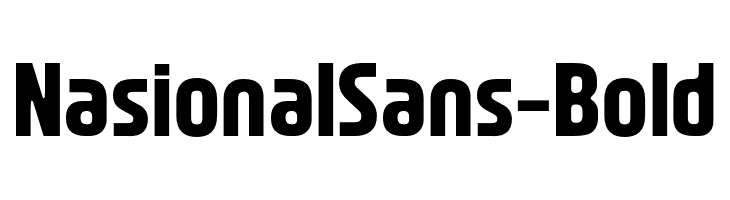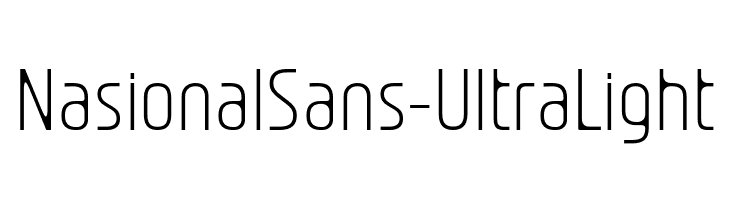
A sleek, ultra-light, and modern sans-serif font with minimal stroke contrast.
A bold, modern sans-serif font with strong, uniform strokes.
A bold, sans-serif font with thick, uniform strokes and a modern design.
A bold, modern sans-serif font with geometric lines and strong presence.
A bold, geometric sans-serif font with a modern and clean design.
A bold, modern typeface with geometric structure and consistent stroke widths.
A sleek, ultra-thin font with a modern, minimalist design and geometric structure.
A modern, geometric font with clean lines and uniform character width.
A sleek, modern font with a geometric and minimalist design.
A modern, clean sans-serif typeface with uniform strokes and slightly condensed characters.